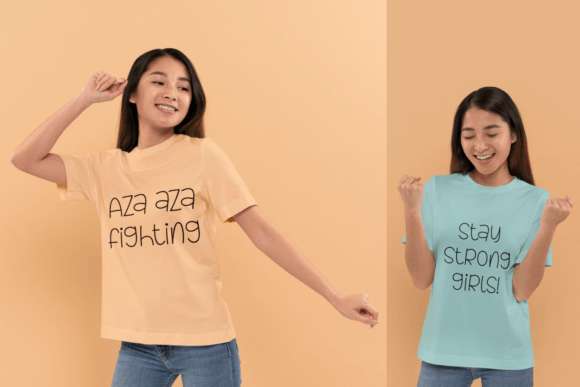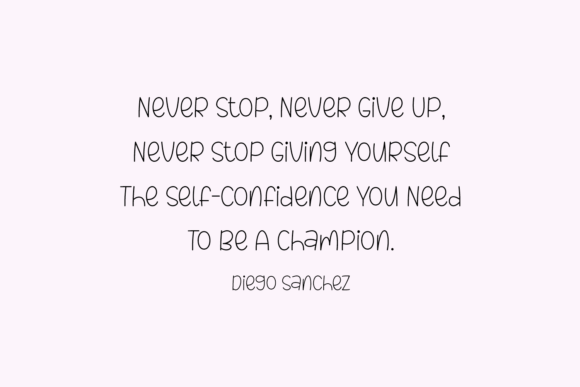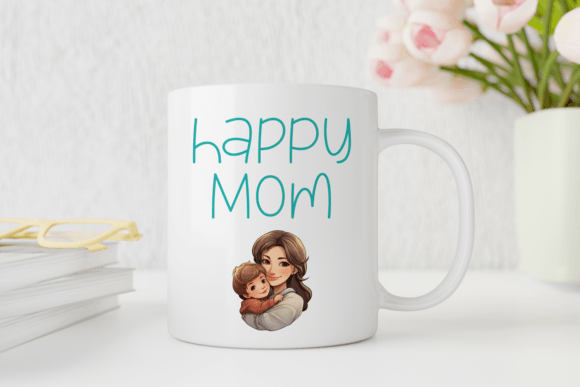
Champion Marks Font
Champion Marks is a quirky handwritten font that exudes charisma and individuality. With playful strokes and unique character shapes, it radiates a lively, handcrafted charm. Whether used for titles, logos, or creative projects, Champion Marks stands as a testament to the spirit of unconventional and spirited design.